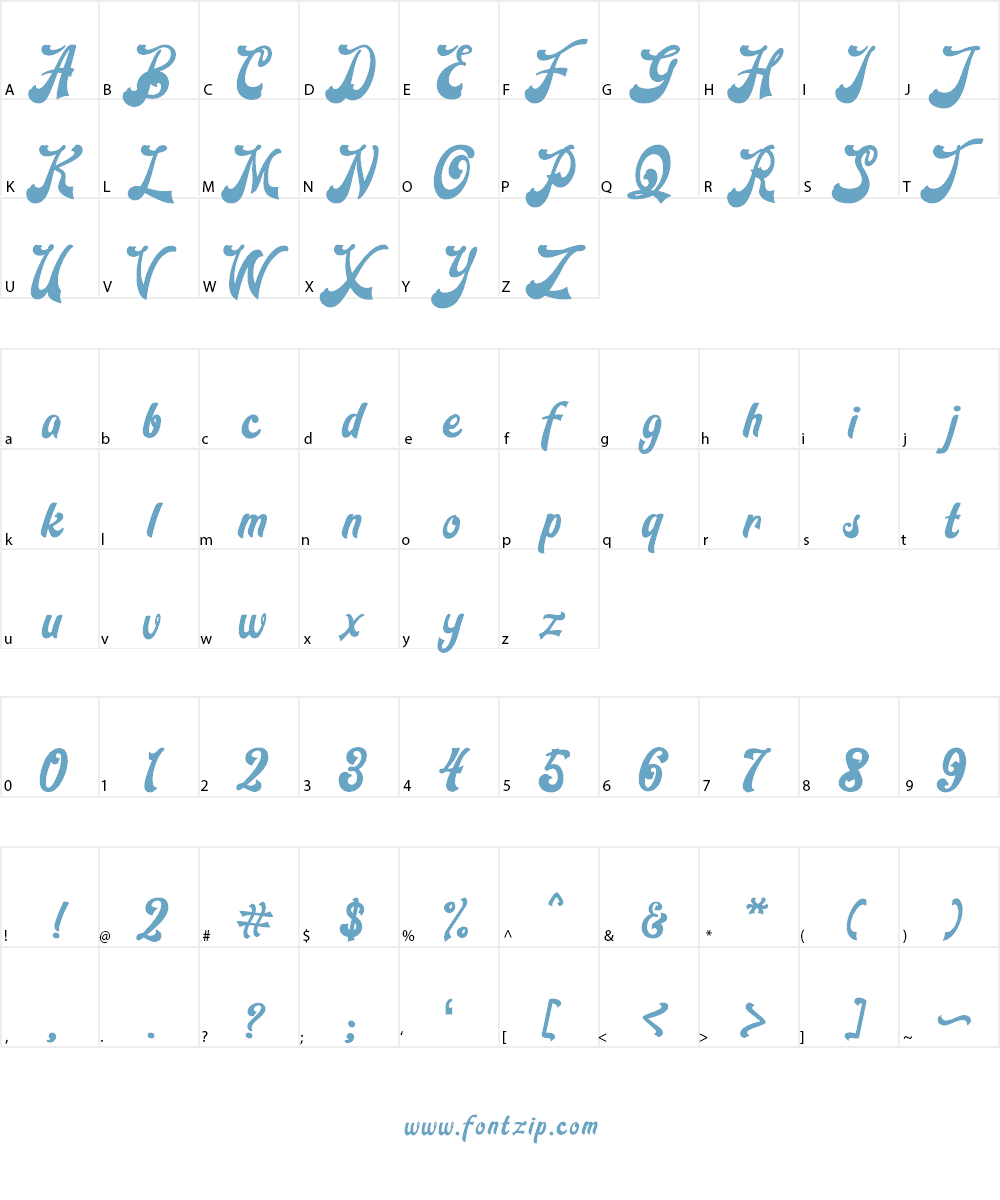
Introduce, this is our newest product, we give it a name
This product is Blora Font.
Blora is crafted with love. It’s designed to work perfectly in multiple designs like weddings invitations, greeting cards, and much more!
Blora Font Family:
• Blora Regular & Bold
• Blora Extrude & Based
• Blora Shadow Otline